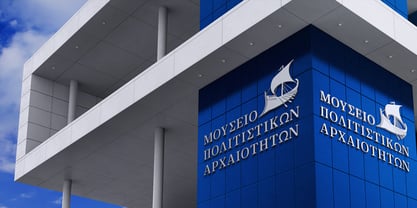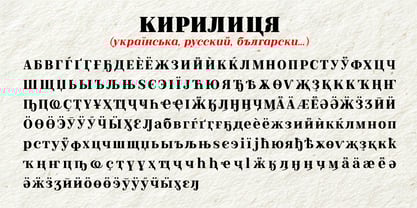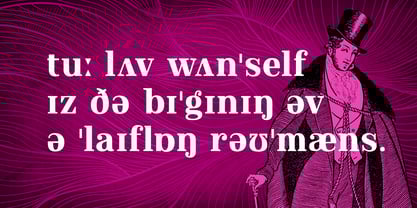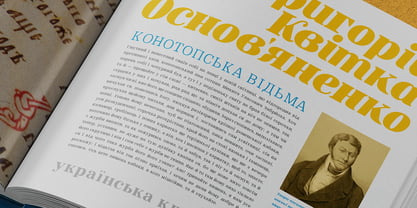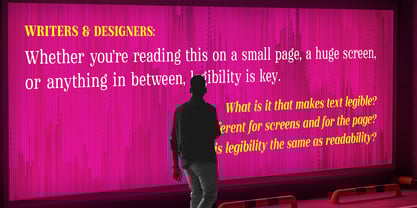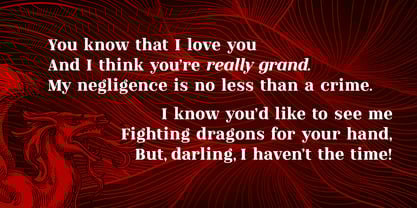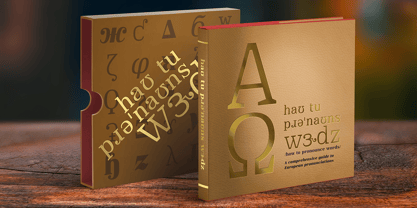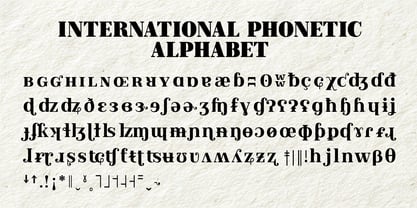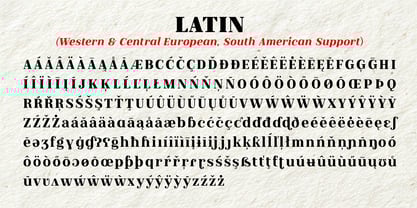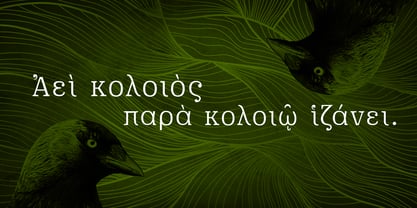
Pygmalion
by The Ampersand Forest
The Pygmalion Font Family was designed by DC Scarpelli and published by The Ampersand Forest. Pygmalion contains 8 styles and family package options.
Meet Pygmalion, a linguist's dream!
Pygmalion is a modern/didone text family in the great tradition of squarish text families like Walbaum, Ibis, and Georgia. It has a high x-height and a great balance of legibility and readability.
Plus, it supports Western and Central European character sets, a full Cyrillic character set, Monotonic and Polytonic Greek, and the International Phonetic Alphabet. That makes it superlative in his usefulness and versatility!
When searching for a didone typeface, it's often a struggle between blackness/legibility and stylishness/contrast. this is especially true of squarish didones, which number less than their round counterparts. Pygmalion is an excellent balance between the two — clean and striking, good for uses from text to heading, and at home in print and on screen.